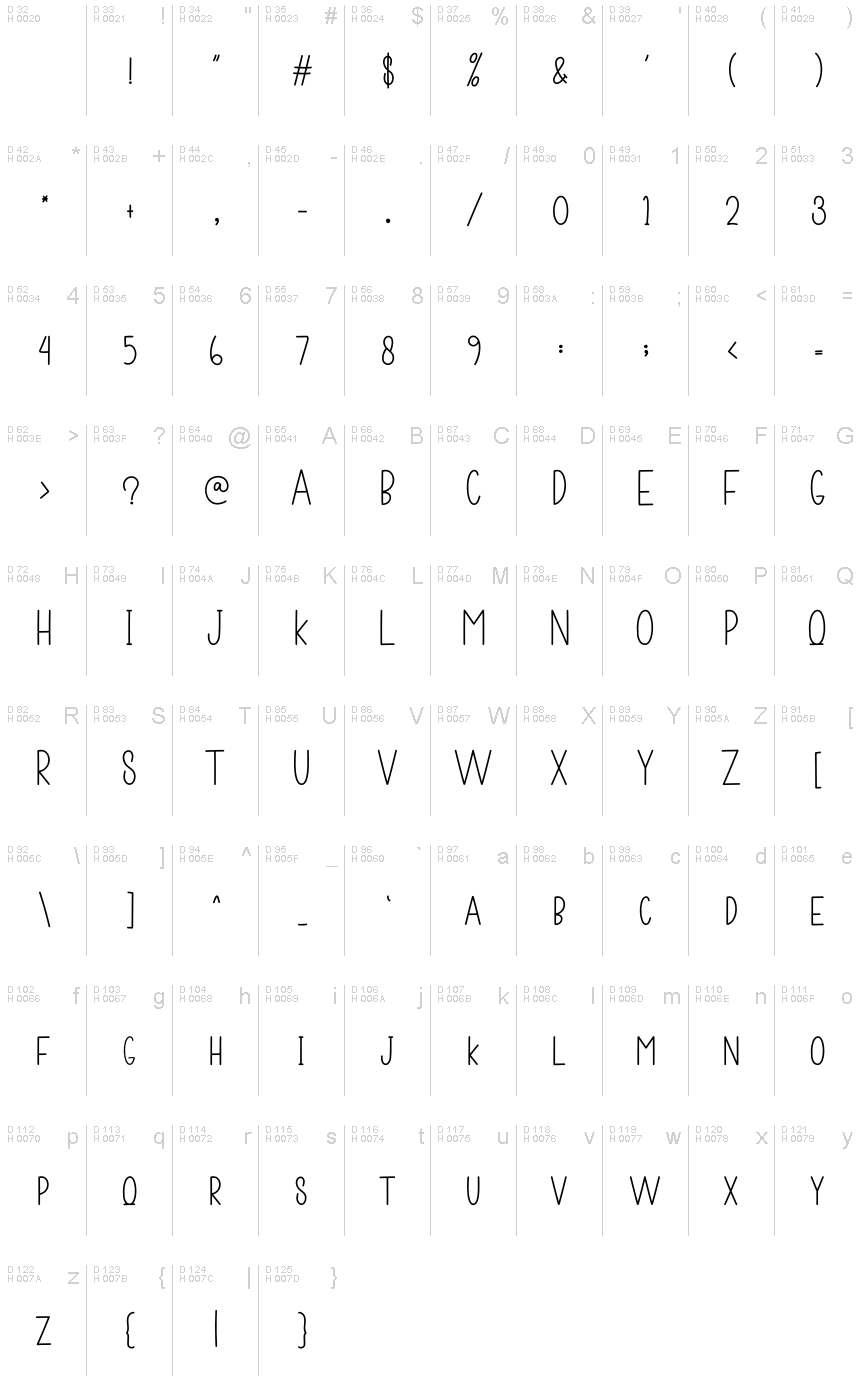
Books And Pens
Books and Pens, crafted by Scratchones, carries the intimate charm of a handwritten note. Its strokes are reminiscent of quick penmanship, where each character is imbued with personality yet retains a condensed form that speaks to efficient elegance. The closeness of the letters lends itself to a cozy, personal feel—perfect for projects that require a touch of authenticity and warmth.
This font's casual sophistication makes it an excellent choice for invitations, personalized stationery, or any creative endeavor that benefits from an approachable yet refined aesthetic. Books and Pens stands out in applications where space is at a premium but style cannot be compromised. Whether gracing the pages of a boutique notebook or adorning the branding materials of an artisanal business, this font marries practicality with the beauty of human touch.